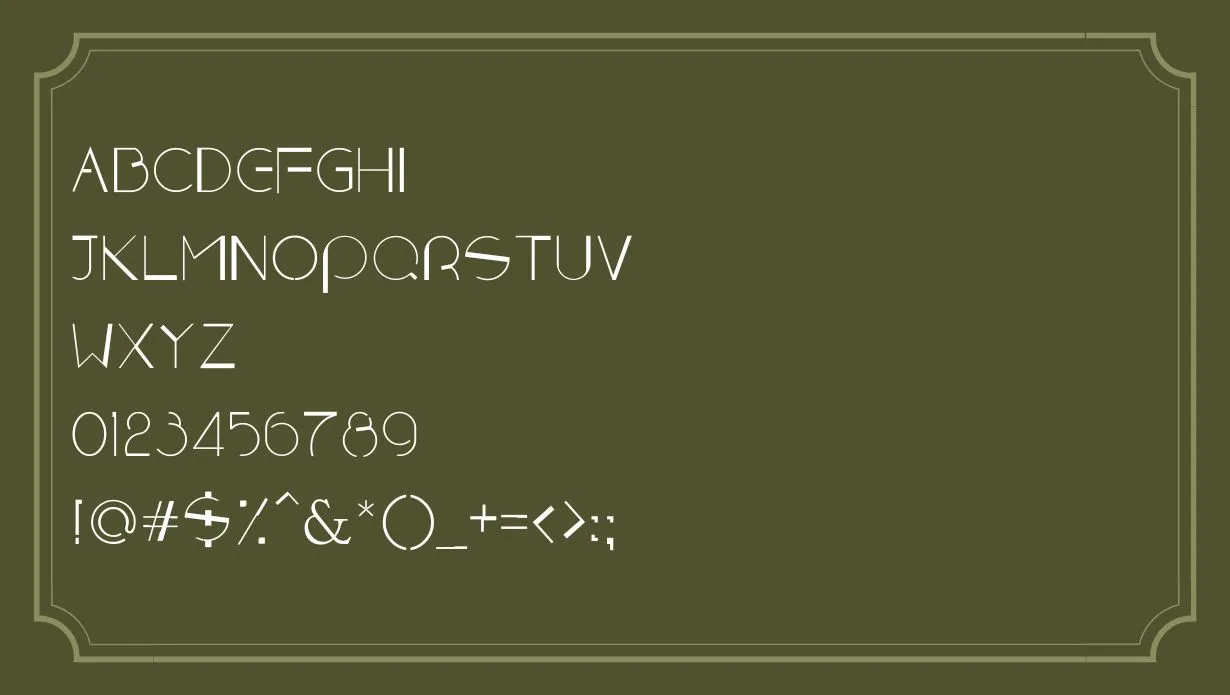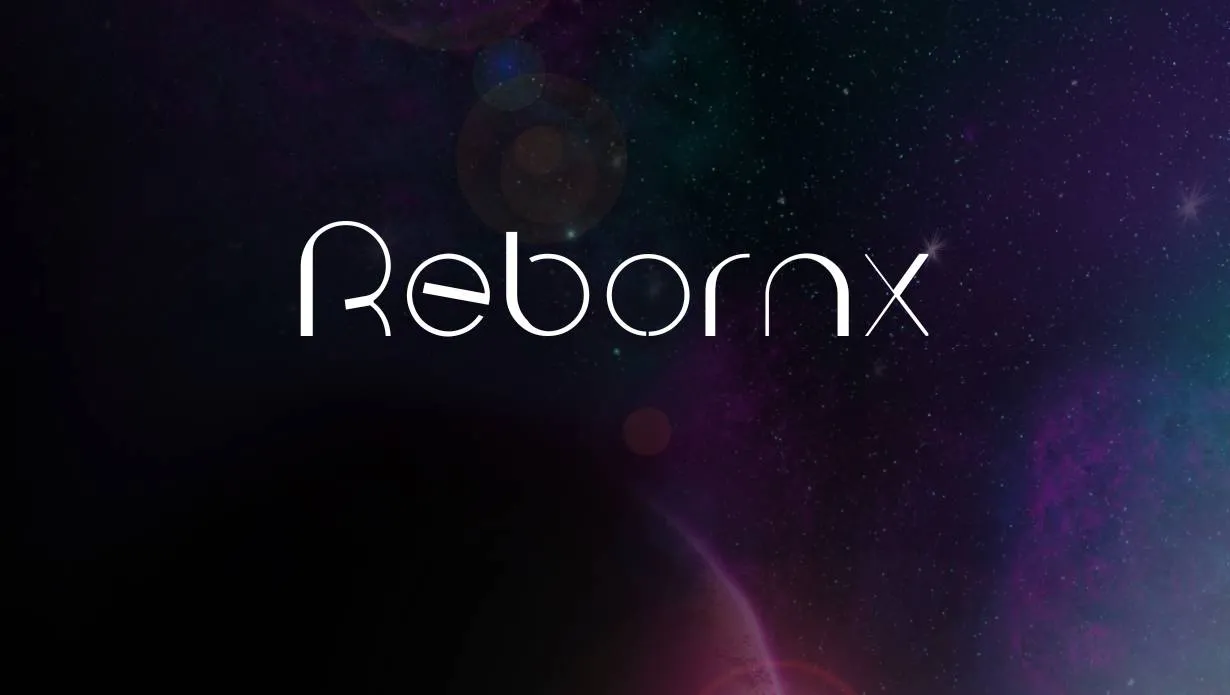
About Rebornx Font Free Download
Rebornx Font is created by Xin Ch and is a nice techno typeface. This is a flexible font that is suitable for both graphic activities and body content.